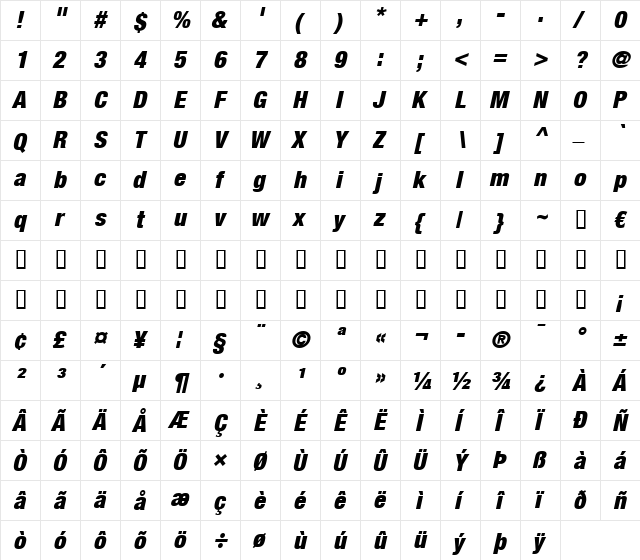
HelveticaNeue LT 97 BlackCn Oblique Font Preview
Design Context for HelveticaNeue LT 97 BlackCn Typeface
HelveticaNeue LT 97 BlackCn takes a measured approach to typography — its balanced proportions and neutral character make it a reliable workhorse for both digital and print work. Its italic angle brings a sense of urgency and motion to the letterforms. Its slender proportions lend an understated elegance to any composition.
Pro Tip: Try HelveticaNeue LT 97 BlackCn for annotation and caption copy alongside an upright companion — the contrast in angle creates a dynamic but ordered typographic system.